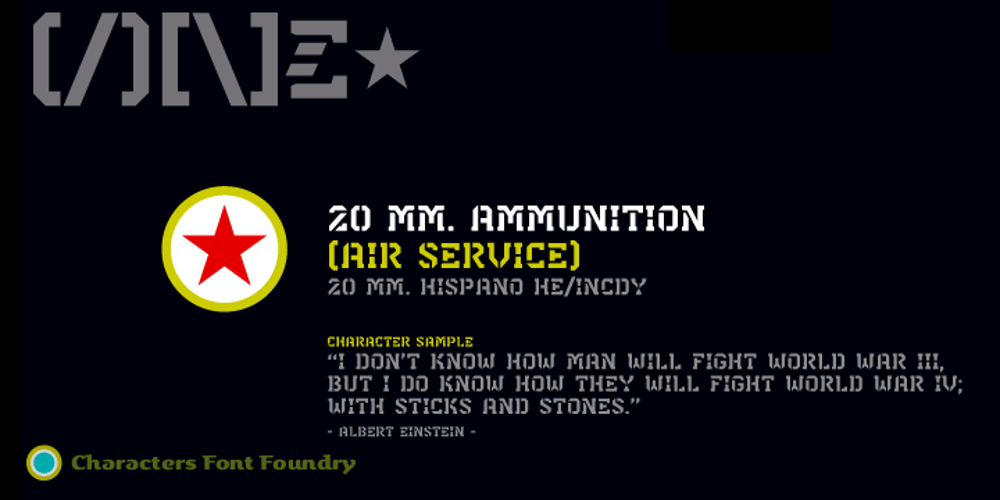
Shell Shock Font Family was designed by René Verkaart and published by Characters Font Foundry. Shell Shock contains 4 styles and family package options. Shell Shock was inspired by stencil typefaces used on military tanks and ammunition boxes. It can be enhanced with a separate set of bombs and warning signs for the typographer in power. Shell Shock Cloak is the ultimate add-on for Shell Shock. This 3-layered ‘Cloaking Device’ enhances the existing Shell Shock. Put the 3 Cloak layers on top of Shell Shock and suddenly it’s camouflaged and you will hardly be able to find it. Use only one extra Cloak layer to give Shell Shock that cool distorted look, like those damaged warsigns on military vehicles. If you only use the Cloak layers you can create background patterns and structures. Try using different color combinations and you’ll be surprised by the possibilities of Shell Shock Cloak. It’s preferably seen on clothing, skateboards, party flyers, posters or other daring design.